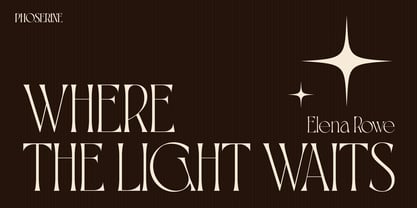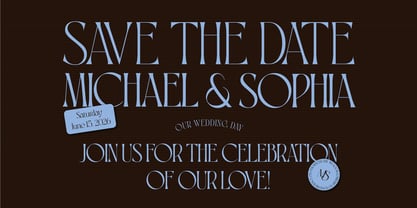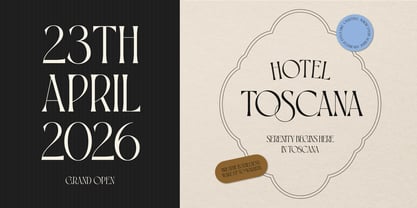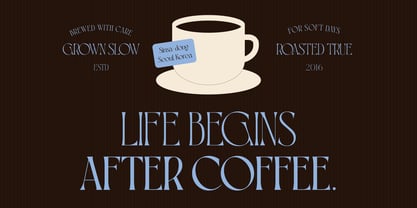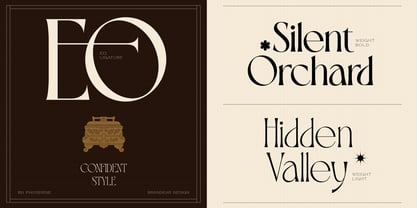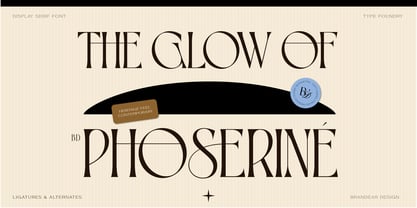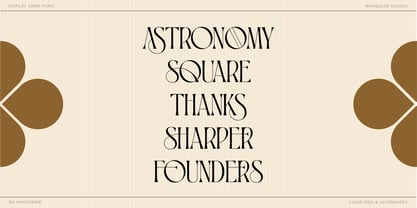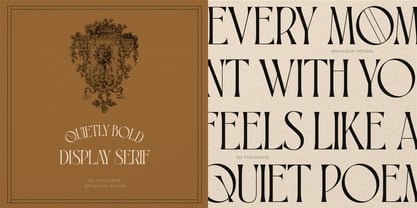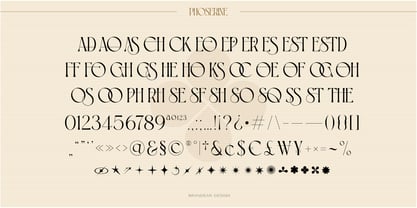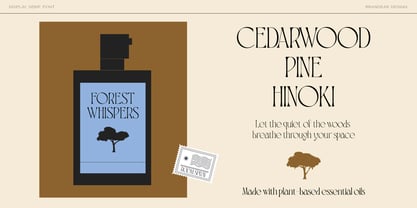
BD Phoserine
by Brandear Design
The BD Phoserine Font Family was designed by Jibin Kim and published by Brandear Design. BD Phoserine contains 3 styles and family package options.
✴︎ PHOSERINÉ is a sophisticated display serif font crafted for visual impact and refined style. With its graceful curves, extended letterforms, and unique design details, PHOSERINÉ brings a touch of Art Deco elegance and modern flair to any project.
This typeface features:
- Stylized ligatures & alternates that add an expressive and decorative edge to your typography.
- Three versatile weights, allowing for flexibility across editorial layouts, branding, packaging, and high-end digital content.
Whether you're designing for fashion, art, or luxury, PHOSERINÉ makes a bold, elegant statement.